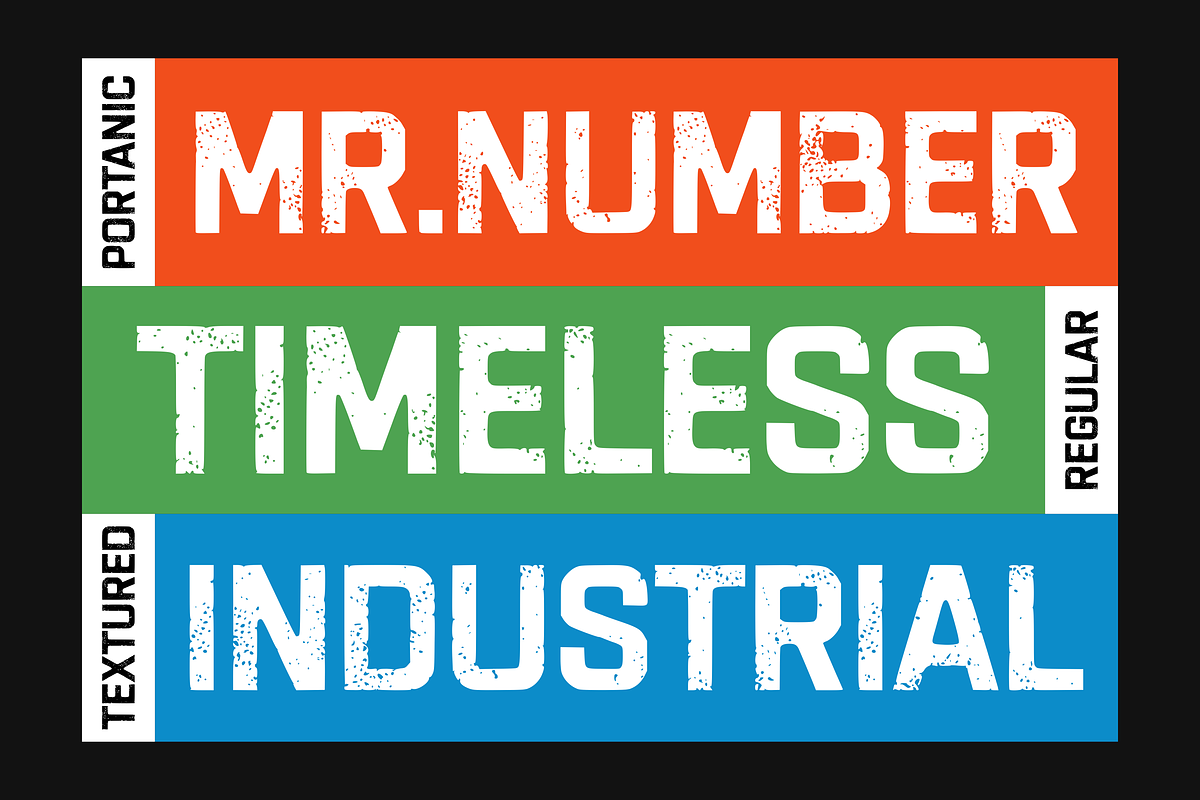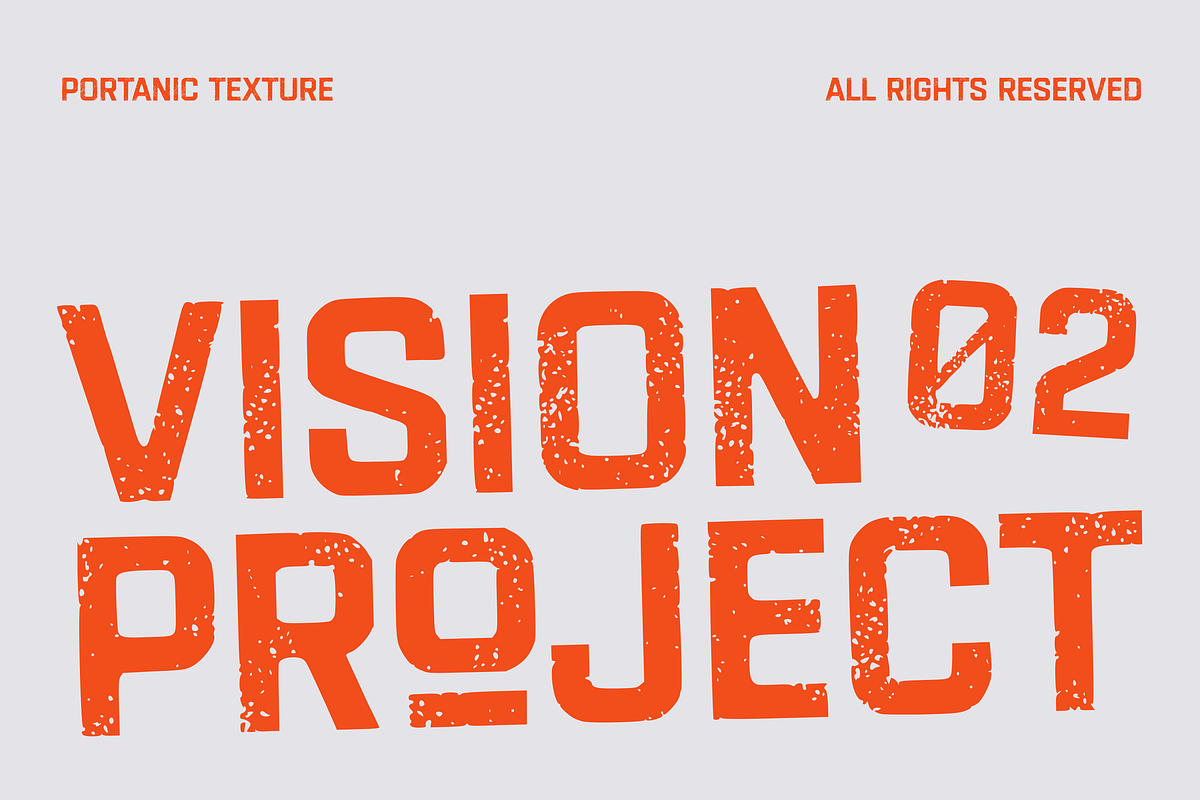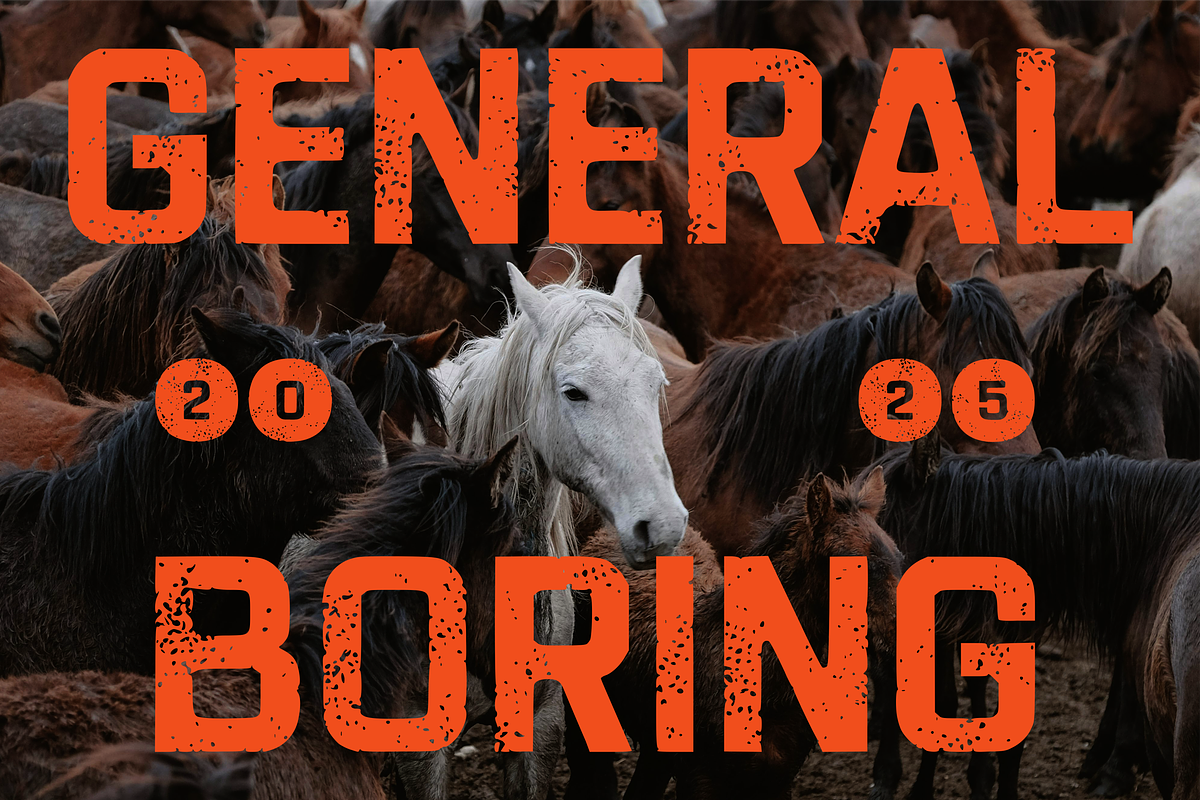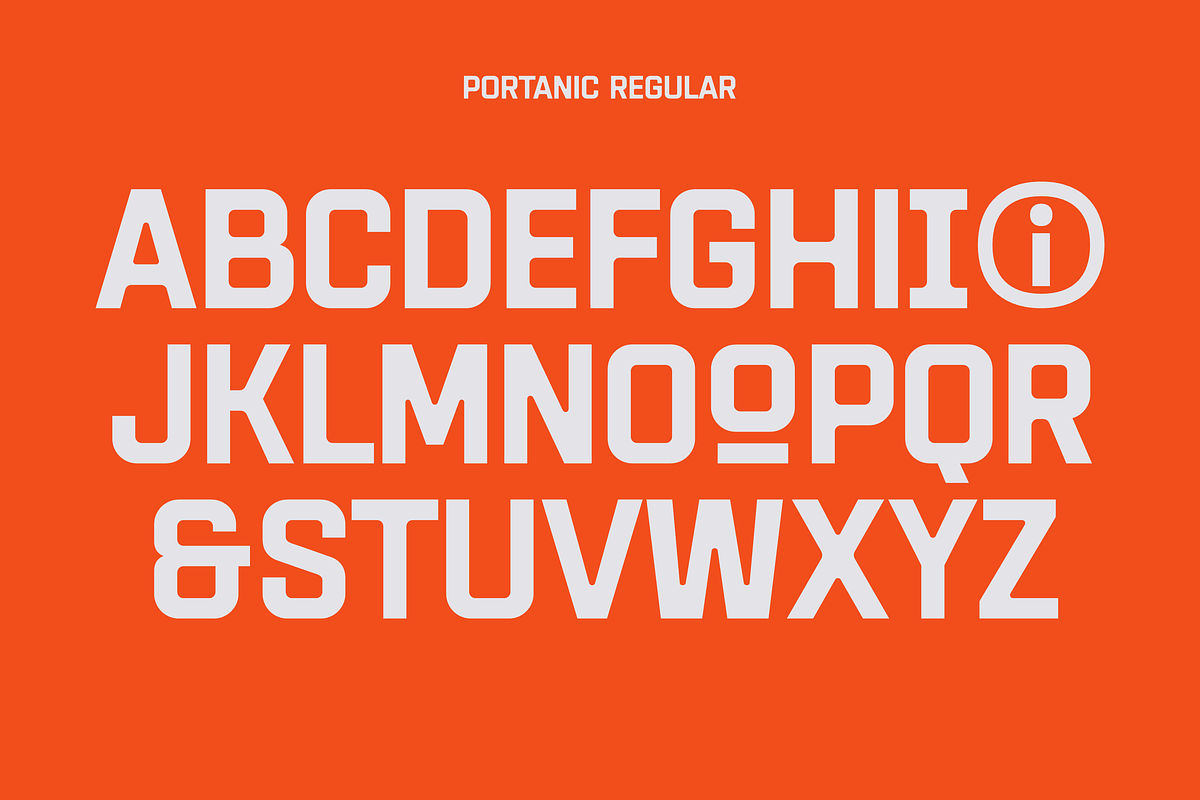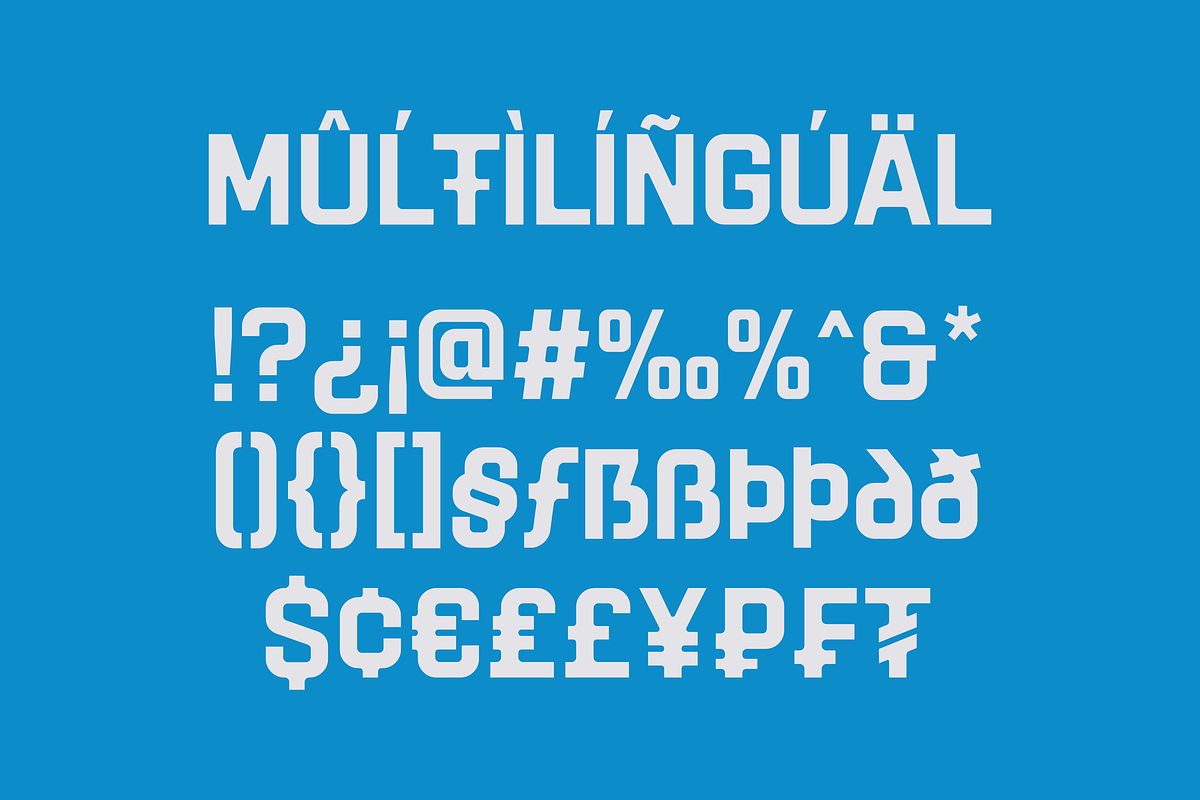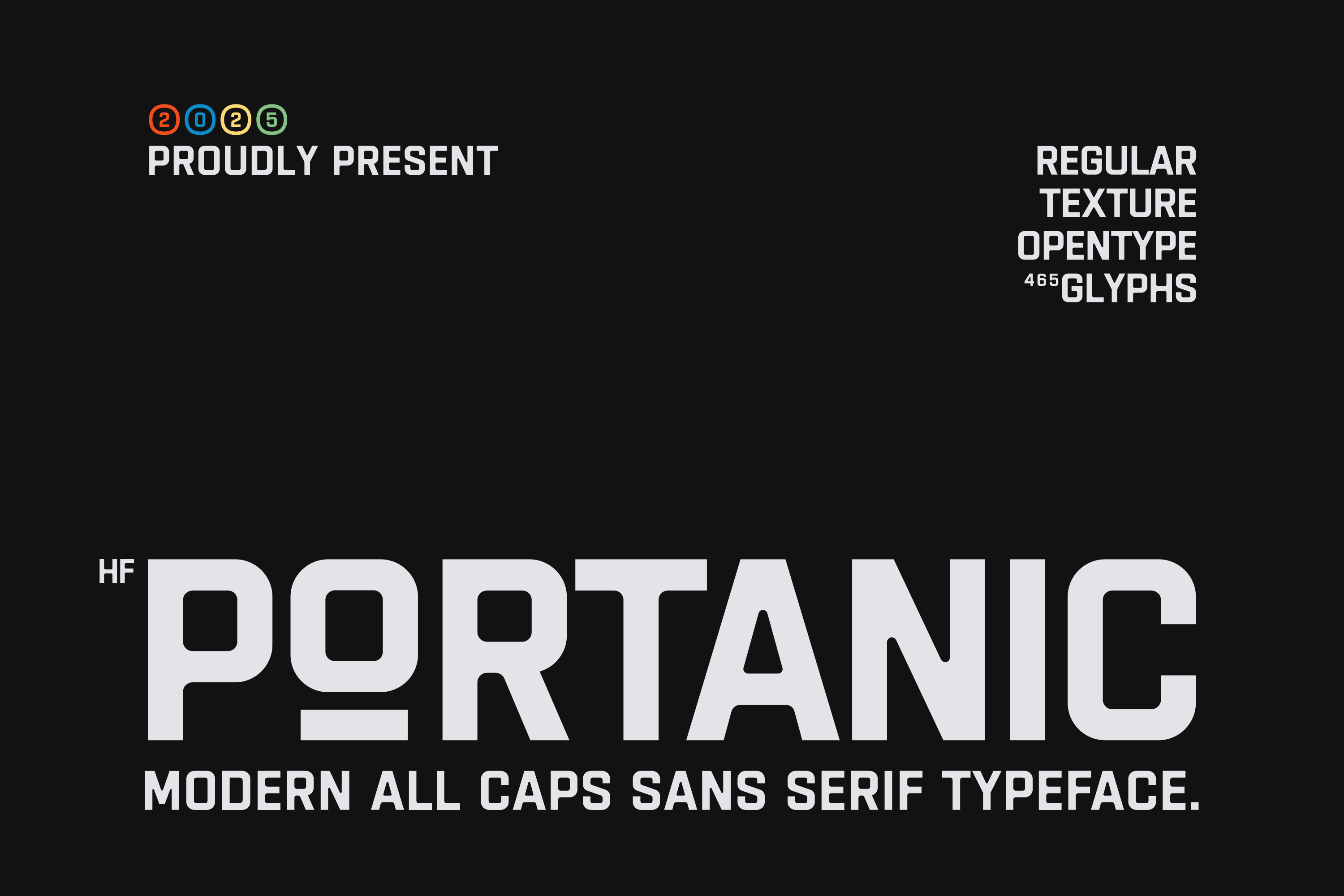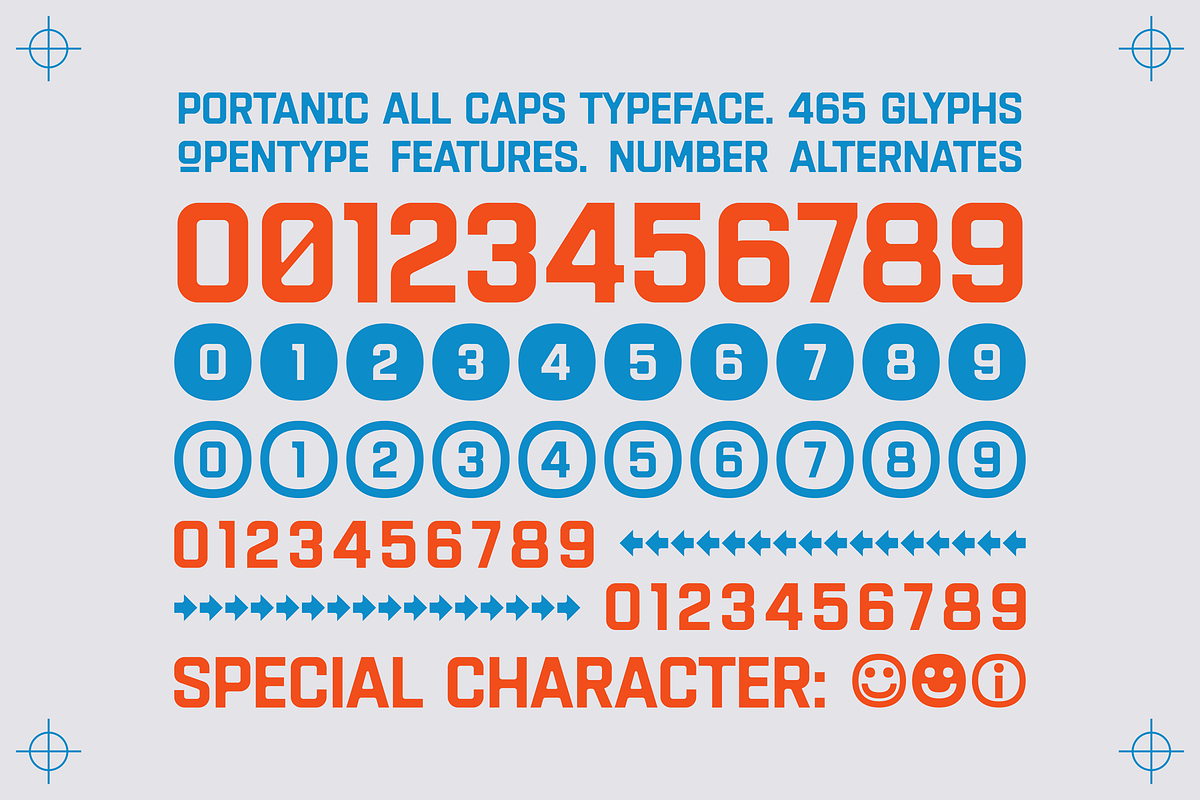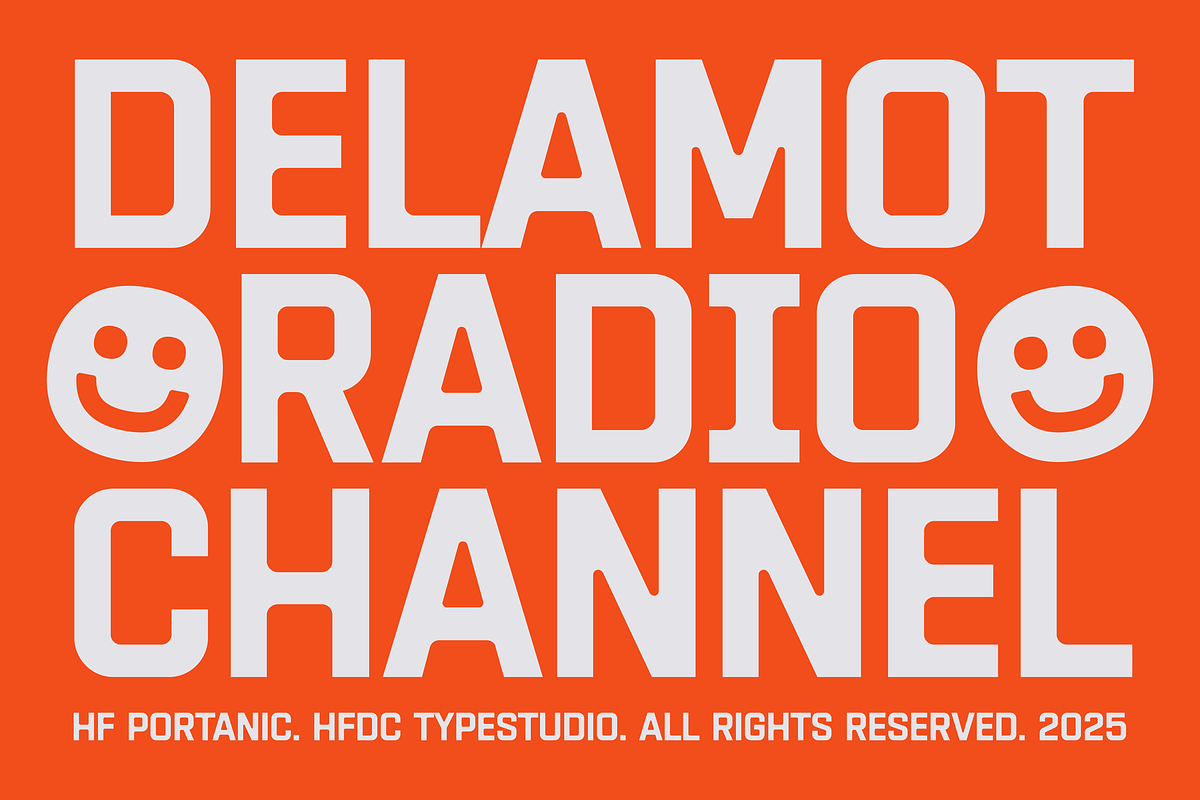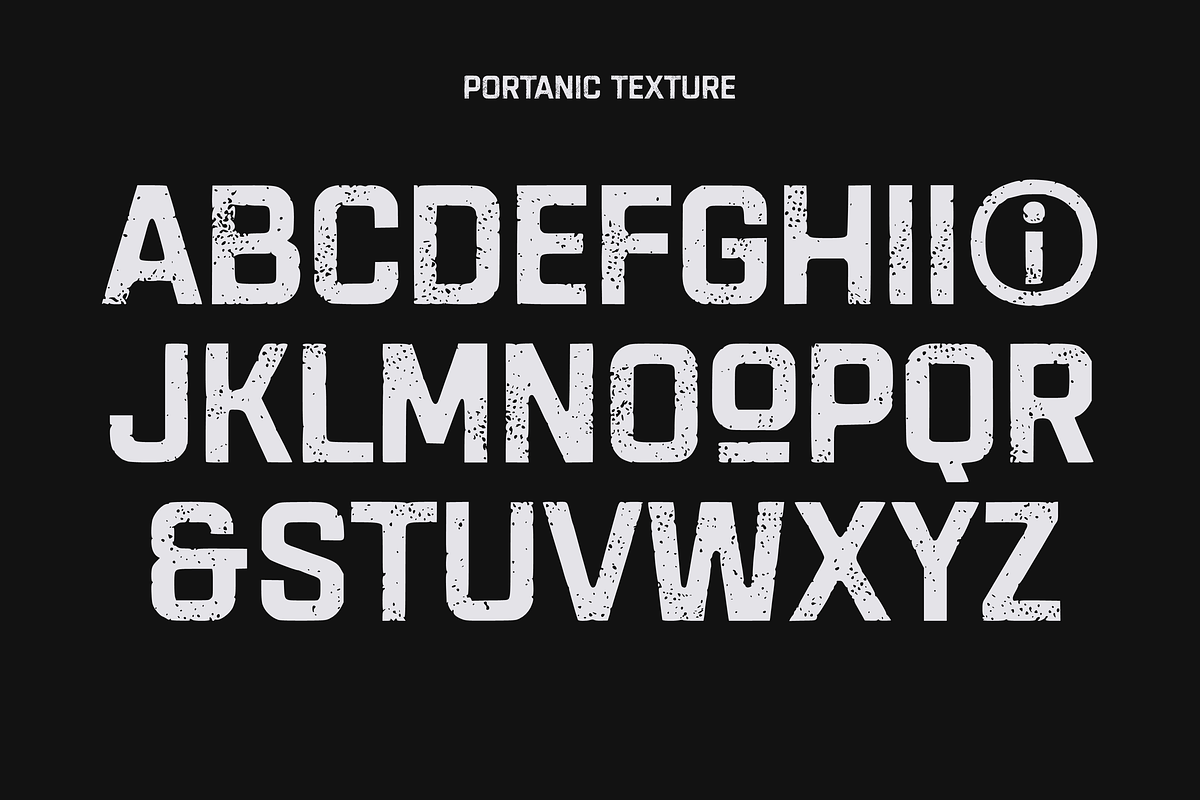
HF Portanic Typeface
HF Portanic is an all caps sans serif typeface with a block style, firm, and neat but has soft corners so it combines softness and firmness in one typeface. This typeface is inspired by the style of writing on the board above the shop which uses a lot of uppercase fonts because they want to show clearly from a product or shop brand, and yes, this HF Portanic became.
- Include Regular & Texture styles
- All caps character
- Number & Punctuation